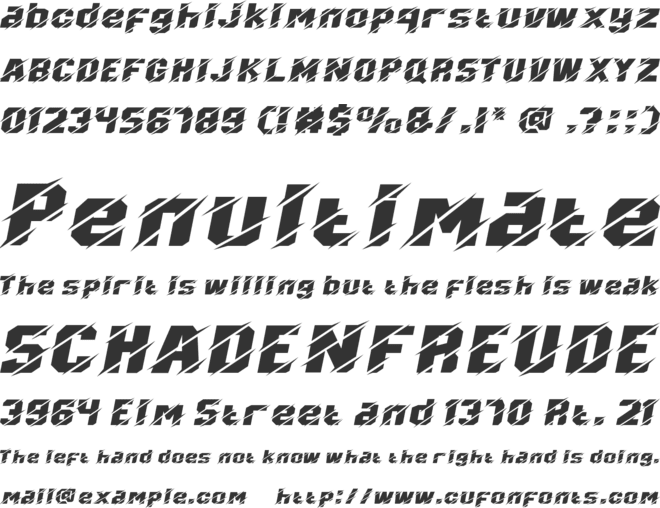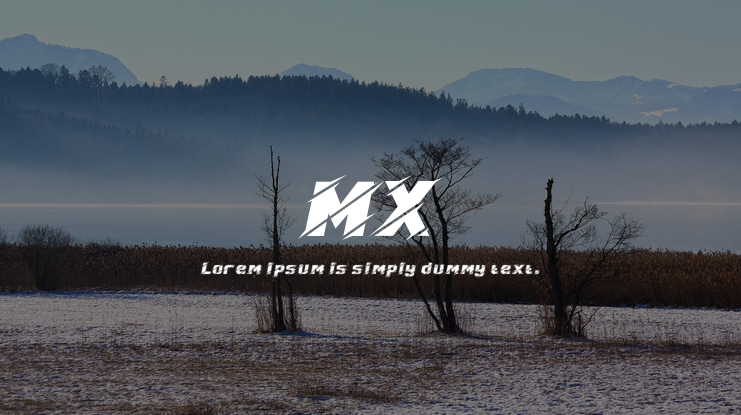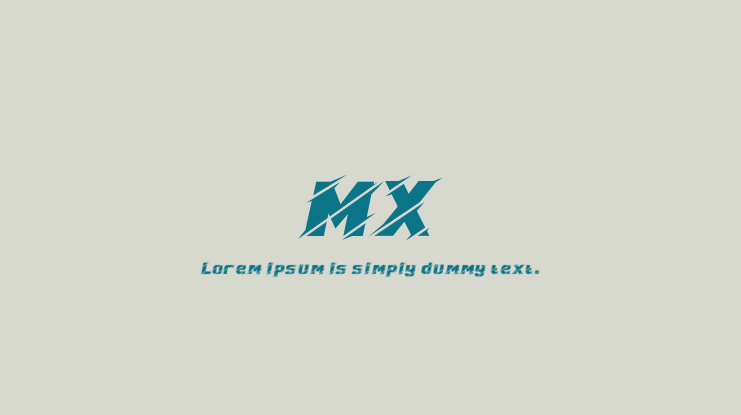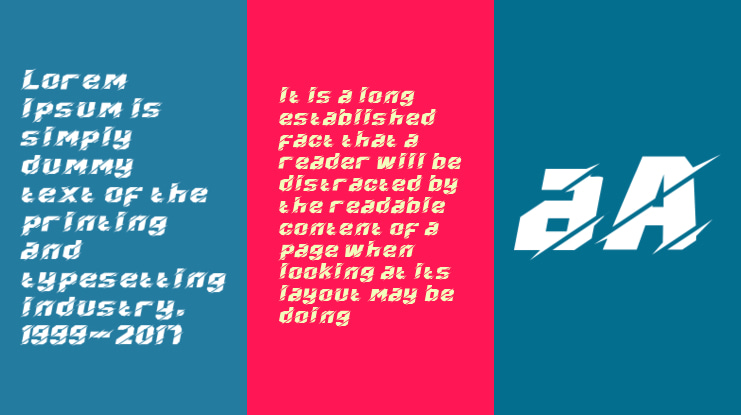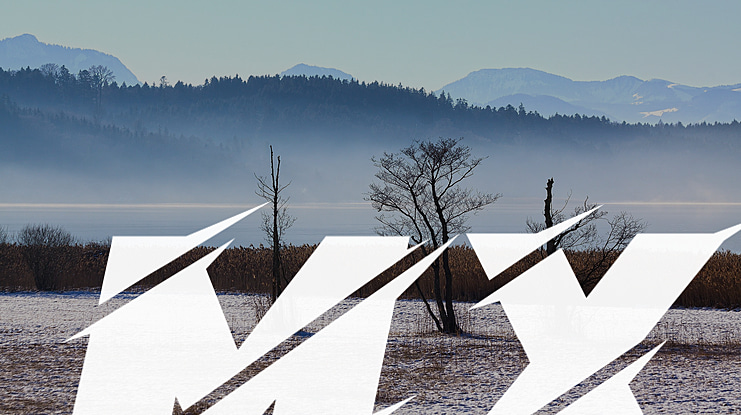
MX Font
MX Display Font
MX consists of a racing style with sharp lines
MX very suitable for automotive magazine covers, racing game covers, logos & branding, product design, labels and so on.
MX font preview